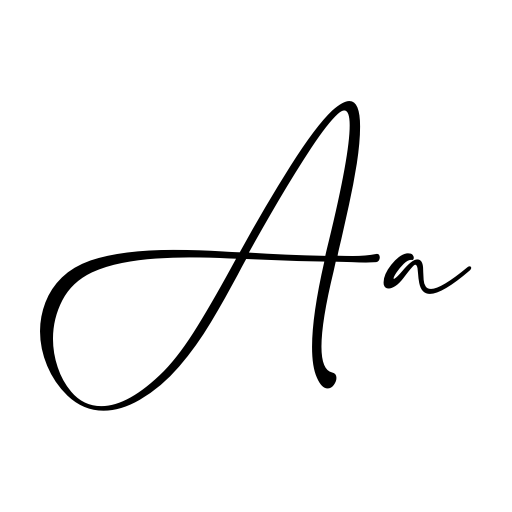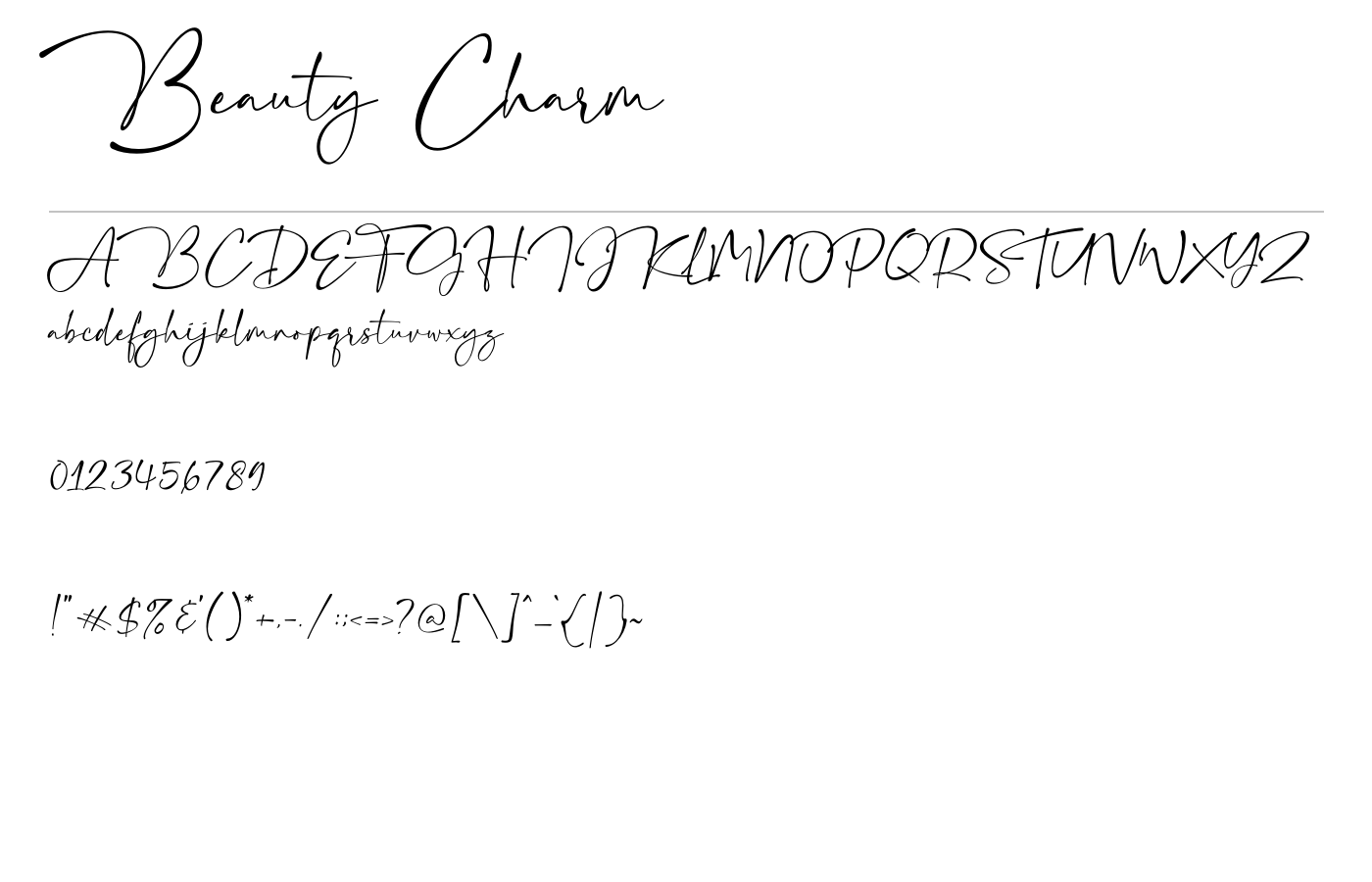
Beauty Charm Font is an elegant, handwritten script with a light, delicate stroke that conveys a graceful and feminine feel. Its tall, flowing letterforms and subtle variations in line weight make it ideal for luxury branding, invitations, and stylish editorial projects that seek a personal yet sophisticated touch. This font works best in large sizes where its intricate details can shine, adding charm and refinement to any design.
Beauty Charm Font
About Beauty Charm Font
| Font family | Beauty Charm Font |
| Designer | Muhamad Yusron Billah |